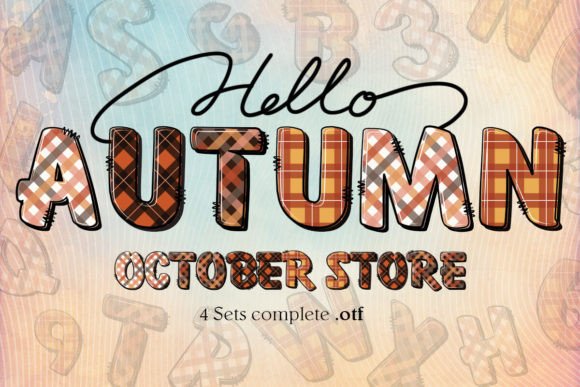
Autumn Font
Welcome to the charm of Autumn Font. Celebrating the essence of Thanksgiving, Halloween, Fall, and even Hallothanksmas, this font provides a darling display of seasonal delight. With its festive touch, it perfectly captures the feel of the happiest times of the year; from the spookiness of Halloween, the gratitude-filled Thanksgiving, to the joyous Christmas.
Its unique style has a charisma and cheer that will make your designs pop with the warm, cozy feel of Fall. This cozy, fun-loving font represents every festive moment, encapsulating all you need to spruce up your unique designs during the holiday season. Autumn Font – a toast to the magical symphony of holidays!